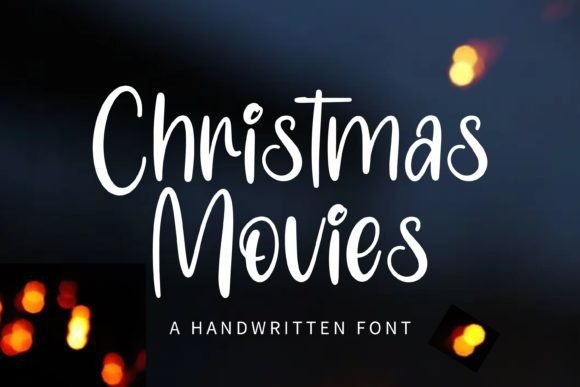
Christmas Movies Font: A Festive and Friendly Handwritten Font for Your Holiday Designs
Are you looking for a font that captures the essence of Christmas and adds a personal touch to your designs? Look no further than Christmas Movies Font! This cool, friendly, and informal handwritten font is perfect for creating chalkboard quotes, teaching materials, and holiday-themed designs that exude a warm and cozy feel.
What is Christmas Movies Font?
Christmas Movies Font is a unique and authentic handwritten font that is designed to resemble the writing style of chalkboard quotes and teaching materials. Its informal and friendly tone makes it perfect for creating holiday-themed designs that are both fun and engaging.
The font’s authentic look and feel are reminiscent of a bygone era, evoking memories of traditional holiday decorations and warm, cozy nights by the fire. Whether you’re creating Christmas cards, holiday posters, or social media graphics, Christmas Movies Font is sure to add a personal and realistic touch to your designs.
Key Features of Christmas Movies Font
- Handwritten font: Christmas Movies Font is a genuine handwritten font that captures the imperfections and uniqueness of human handwriting.
- Cool and friendly tone: The font’s informal tone makes it perfect for creating holiday-themed designs that are both fun and engaging.
- Authentic look and feel: The font’s design is inspired by traditional chalkboard quotes and teaching materials, giving it a nostalgic and retro feel.
- Multilingual support: Christmas Movies Font supports multiple languages, making it a versatile choice for designers around the world.
Creative Ways to Use Christmas Movies Font
Christmas Movies Font is a versatile font that can be used in a variety of creative ways. Here are some ideas to get you started:
- Chalkboard quotes: Use Christmas Movies Font to create festive chalkboard quotes that are perfect for holiday decorations, social media graphics, and marketing materials.
- Teaching materials: The font’s informal tone and authentic look make it perfect for creating teaching materials, such as worksheets, handouts, and presentations.
- Holiday posters: Create eye-catching holiday posters using Christmas Movies Font and add a personal touch to your designs.
- Christmas cards: Use the font to create festive Christmas cards that are sure to impress your friends and family.
- Social media graphics: Create engaging social media graphics using Christmas Movies Font and add a touch of holiday cheer to your online presence.
Design Tips for Using Christmas Movies Font
Here are some design tips to help you get the most out of Christmas Movies Font:
- Pair with complementary fonts: Pair Christmas Movies Font with complementary fonts to create visual interest and add depth to your designs.
- Use contrasting colors: Use contrasting colors to make your text stand out and add a pop of color to your designs.
- Experiment with textures: Add a touch of realism to your designs by experimenting with textures, such as chalkboard textures or wood textures.
- Keep it simple: Don’t overcomplicate your designs. Keep it simple and let the font’s authentic look and feel shine through.
Christmas Movies Font is a unique and festive handwritten font that’s perfect for creating holiday-themed designs that are both fun and engaging. Its authentic look and feel, combined with its cool and friendly tone, make it a versatile choice for designers around the world. Whether you’re creating chalkboard quotes, teaching materials, or holiday posters, Christmas Movies Font is sure to add a personal and realistic touch to your designs.